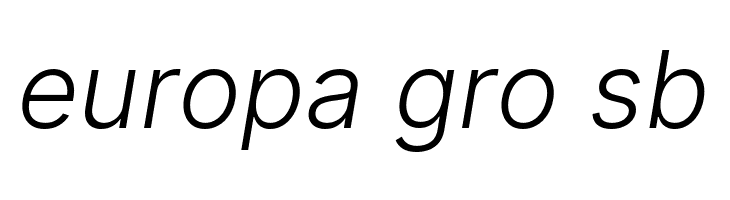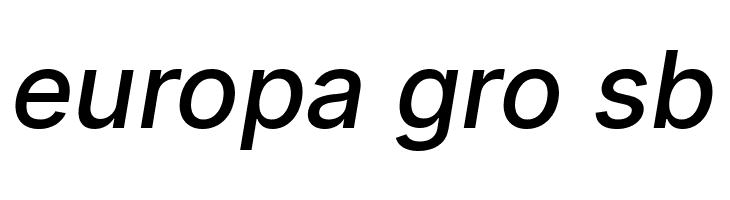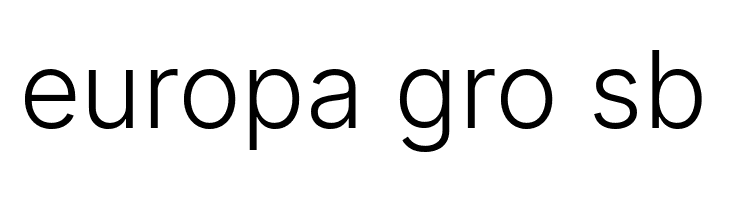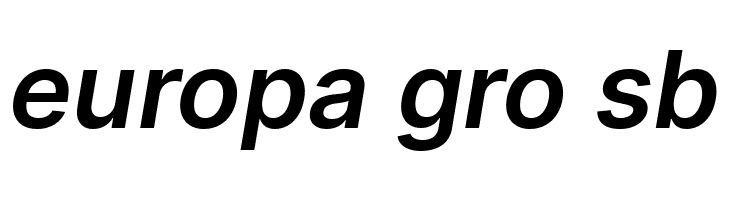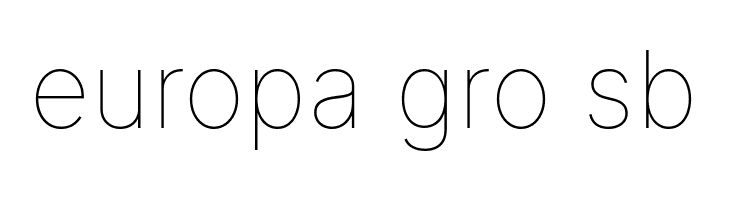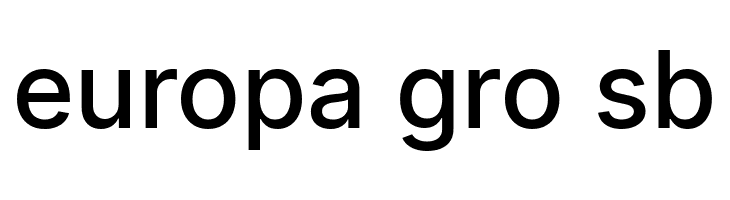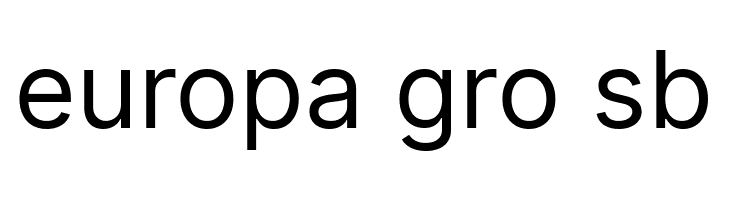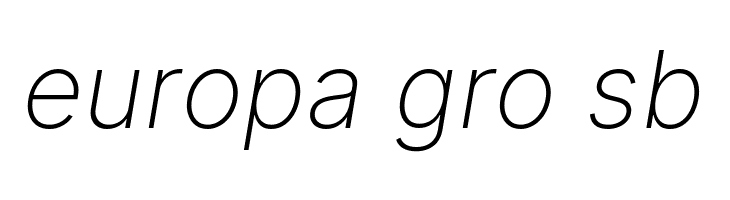
A sleek, modern sans-serif font with an extra-light italic style.
A modern, italic sans-serif font with clean lines and excellent readability.
A modern, light sans-serif font with clean lines and balanced spacing.
A light, italic, modern sans-serif font with smooth strokes and normal spacing.
A modern, clean sans-serif font with uniform strokes and balanced proportions.
A modern, italic sans-serif font with balanced proportions and clear readability.
A clean, modern sans-serif font with balanced proportions and excellent readability.
A clean, modern sans-serif typeface with uniform stroke width and excellent readability.
A modern, semi-bold italic sans-serif font with medium contrast and normal spacing.
A modern, thin sans-serif font with clean lines and balanced spacing.